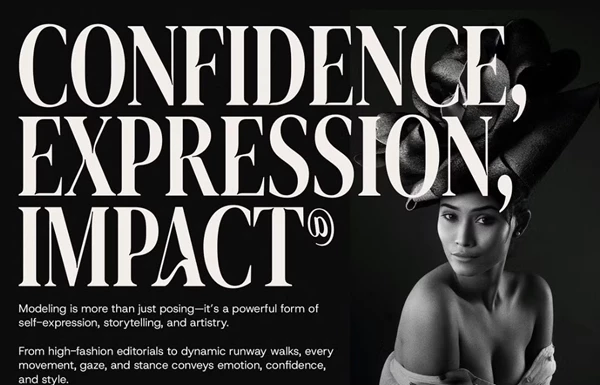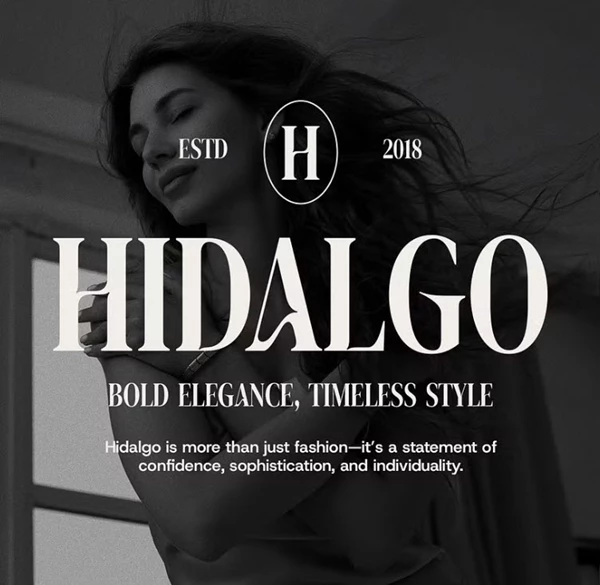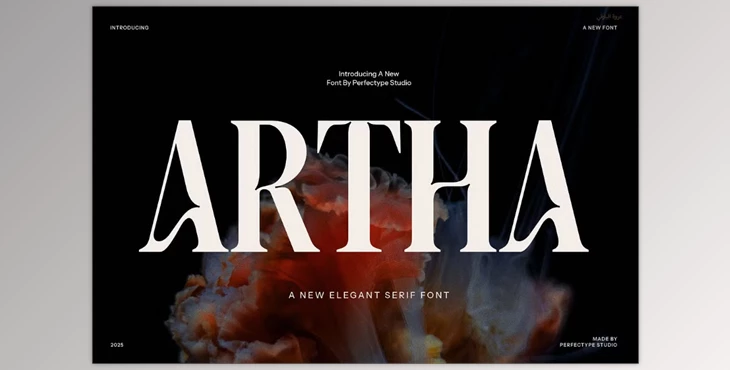
Artha Elegant Serif Font:
Turning to The Artha Elegant Serif Font, this typeface was explicitly designed with a stunning blend of modern and classic fashion. It comes equipped to augment a myriad of creative work like brand development, web design, and editorial layout design. Its versatility allows it to stand as an excellent choice for logos, branding, advertisements, and boutique and product showcasing.
Texto 2 Artha stands out for its serif-styled typefaces and soft yet firm appearance. The Artha font can be used in magazine spreads and on packaging for luxury goods, and its timeless faces always look polished, professional and readable.
Artha’s alternate characters and stunning ligatures stand out, giving designers unparalleled flexibility. The serif font can achieve unique forms of expression, setting it apart from other serif fonts. The ligatures form a flow that is smooth and coherent, and the characters provide avenues for sophisticated designs. It will serve best where a designer’s intervention is critical.
Artha’s adaptability makes it excel in everything from high-end boutique logo designs to website layouts and advertisements for high-end products. It is equally great for timeless design and contemporary usability in fashion, food, and premium services. The elegance and versatility that Artha offers make designing work with class and style effortless. Distinctive features, along with polished letterforms, ensure that projects are unforgettable.
"Artha Elegant Serif Font" Samples: